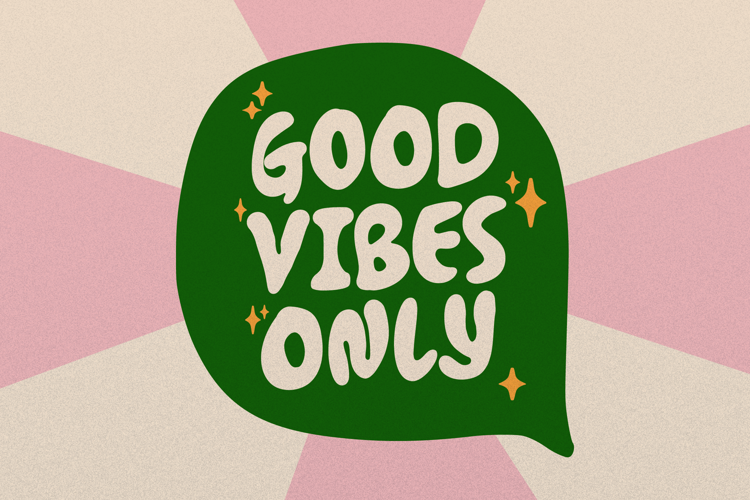
Pops Cloud Font
Pops Cloud | Groovy Hand Drawn, is suitable for any projects such as: logos, branding projects, homeware designs, product packaging, mugs, quotes, posters, shopping bags, t-shirts, book covers, name card, invitation cards, greeting cards, label, photography, watermark, special events, and all your other lovely projects that need a Hand Drawn taste.